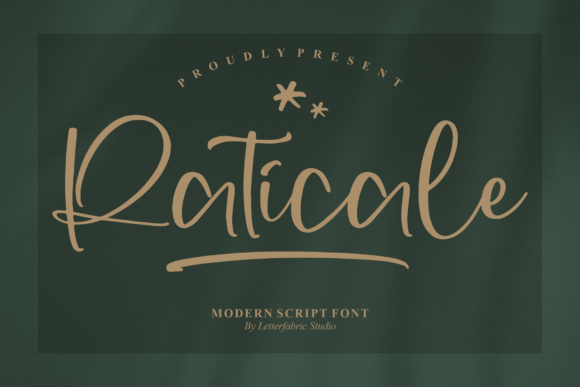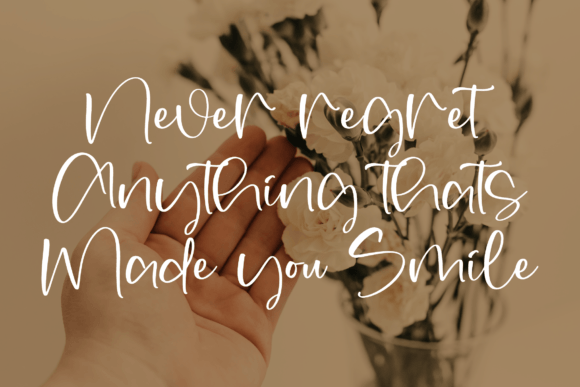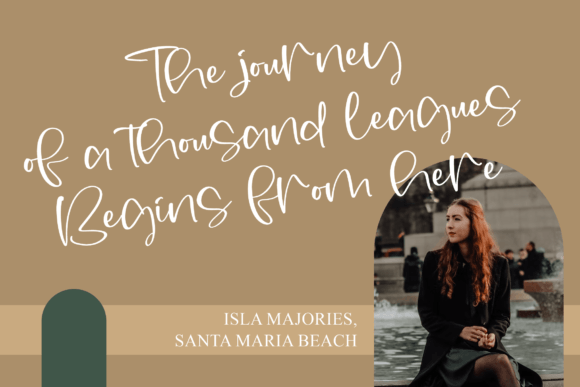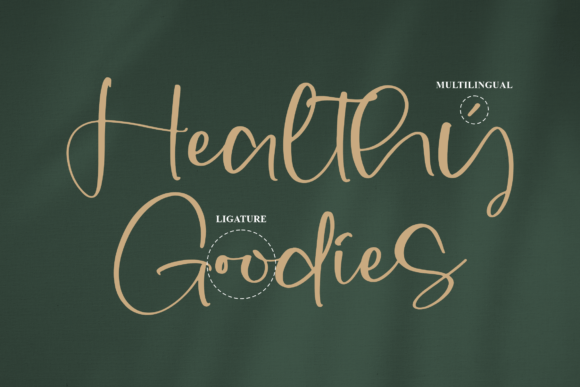
About Raticale Font
“Raticale: Where Modernity Meets Elegance in Handwritten Typography
Introducing Raticale, a modern handwritten font designed to elevate your creative projects with a perfect blend of contemporary style and timeless elegance. Its sleek lines and graceful letterforms make it the ideal choice for a wide range of design applications, including logos, branding projects, homeware designs, product packaging, posters, T-shirts, book covers, greeting cards, labels, and much more. With Raticale, your designs effortlessly capture attention, leaving a lasting impression with a touch of modern sophistication and artistic allure.
The appeal of Raticale lies in its seamless fusion of modernity and elegance, where each stroke embodies a sense of sophistication and creativity. Its carefully crafted letterforms exude a contemporary vibe, making it a versatile font that complements both digital and print designs. Imagine your logos adorned with Raticale’s sleek, stylish characters, reflecting the essence of your brand with modern finesse. Picture your product packaging featuring its graceful lines, enhancing the visual appeal with a touch of artistic elegance. With Raticale, your designs exude a sense of modern sophistication, making them visually striking and emotionally engaging.
One of Raticale’s standout features is its adaptability. Its modern handwritten style makes it suitable for a wide variety of creative projects, allowing you to explore endless possibilities. Whether you’re designing homeware items, posters, T-shirts, or invitation cards, Raticale adds a contemporary flair that elevates your creations to new heights. Let your branding projects radiate with modern sophistication, and watch as your greeting cards captivate hearts with a touch of artistic allure.
Moreover, Raticale is more than just a font; it’s an embodiment of contemporary elegance and artistic creativity. Its modern style and graceful lines resonate with individuals who appreciate the beauty of modern design, making it a favorite among designers and enthusiasts seeking a font that effortlessly combines modernity and elegance. Raticale becomes a symbol of your creativity, allowing you to create designs that not only catch the eye but also evoke a sense of contemporary sophistication and artistic allure.
In a world where modernity meets elegance in handwritten typography, Raticale helps you make a statement. It speaks the language of contemporary finesse and artistic creativity, resonating with those who appreciate the beauty of modern design and timeless elegance. Whether you’re designing for digital platforms, branding, or special events, Raticale becomes your trusted companion, guiding you toward design excellence.
So, why settle for ordinary when you can embrace the extraordinary with Raticale? Let this modern handwritten font be the canvas for your creative expressions, and watch as your projects come to life with contemporary finesse, timeless elegance, and artistic allure. Let your creativity flow, and let Raticale be the brushstroke that paints your ideas into visually captivating masterpieces, leaving a lasting impression on the hearts of your audience. Elevate your designs with Raticale, where modernity meets elegance in handwritten typography, and transform your creations into works of art that resonate with the authentic spirit of contemporary creativity.”